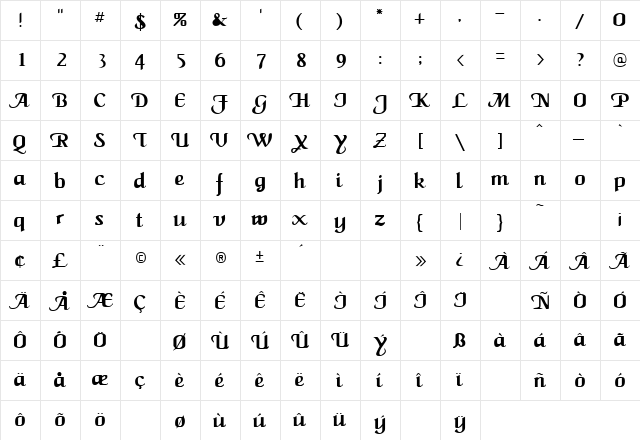
Jambeau Normal
Design Context for Jambeau Typeface
Jambeau is a composed and adaptable typeface that performs quietly and consistently across a wide range of design contexts.